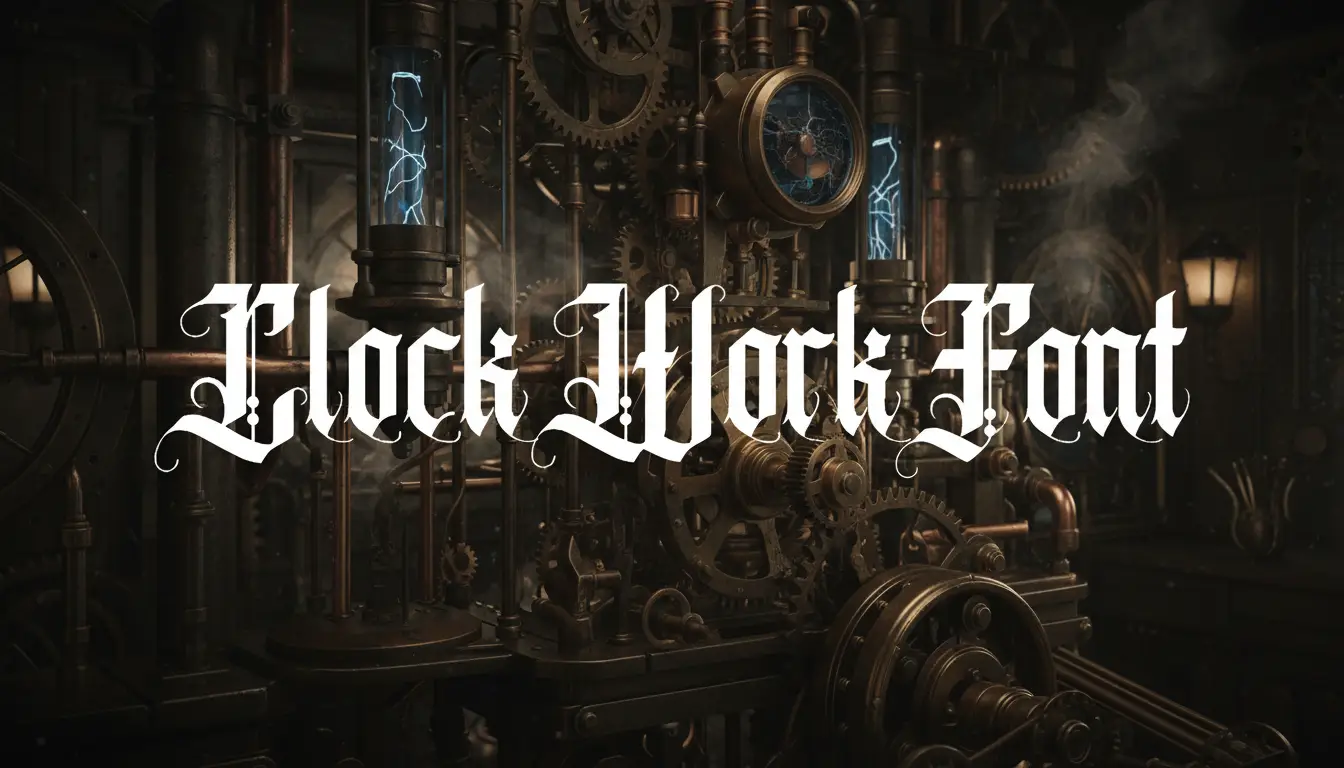
Clockwork Font
Clockwork
Clockwork is a gothic font created by Maulana creative. Sharp, dark and dramatic, it follows the blackletter tradition of old European manuscripts. It's a free download, and you can try it with your own text in the preview above first.
What You Can Type With Clockwork
Clockwork has the full alphabet in upper and lowercase. There are no numbers, so you'll need a second font for dates, prices or phone numbers. Punctuation is limited, so look at the character map if you need a specific symbol. There are no accented letters like é or ñ, so it's best kept to English text.
Where Clockwork Works Best
Clockwork is a natural fit for tattoos, metal band logos and dark fantasy titles. Blackletter is very hard to read in all caps, so type in normal upper and lowercase.
Does Clockwork support accented letters?
No. Clockwork has no accented letters such as é, ñ or ü, so it's best for English text.